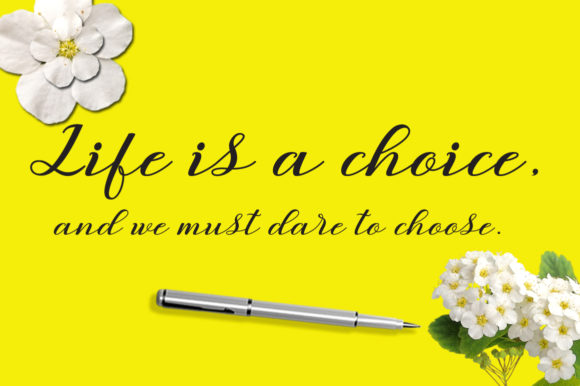
The Azalea Font: A Beautiful Calligraphy Typeface for Your Designs
I’ll never forget the time I was working on a project for a client who wanted a feminine touch added to their branding. I had spent hours scouring the internet for the perfect font, but nothing seemed quite right. That was until I stumbled upon the Azalea font. This stunning calligraphy typeface has a beautiful and elegant touch that instantly elevated my design and impressed my client.
An Honest Review of Azalea Font
- ✨ Elegant and sophisticated design that’s perfect for adding a touch of femininity to your projects
- 💫 Beautifully crafted with attention to detail, making it perfect for high-end designs
- 🎨 Versatile and can be used for a variety of design projects, from branding to wedding invitations
While the Azalea font is an amazing typeface, there are a few things to keep in mind. ⚠️ Some users have reported that the font can be a bit finicky when it comes to kerning, so be sure to adjust as needed. 🤔 Additionally, the font may not be suitable for very long blocks of text, as it is designed more for headings and titles.
- Experiment with the OpenType features, such as glyphs and stylistic alternates, to add more personality to your text
- Take advantage of the font’s OpenType features, such as ligatures and stylistic sets, to add more visual interest to your text
The Designer Inspiration Behind Azalea Font
The Azalea font was inspired by the beauty of nature and the elegance of traditional calligraphy. The designer wanted to create a font that would evoke the feeling of a bygone era, while still being modern and versatile. The result is a stunning typeface that is perfect for adding a touch of sophistication and femininity to your designs.
| What is the Azalea font best used for? | The Azalea font is best used for designs that require a touch of elegance and sophistication, such as branding, wedding invitations, and high-end marketing materials. |
| Is the Azalea font suitable for body text? | No, the Azalea font is designed more for headings and titles. It’s not recommended for long blocks of body text. |